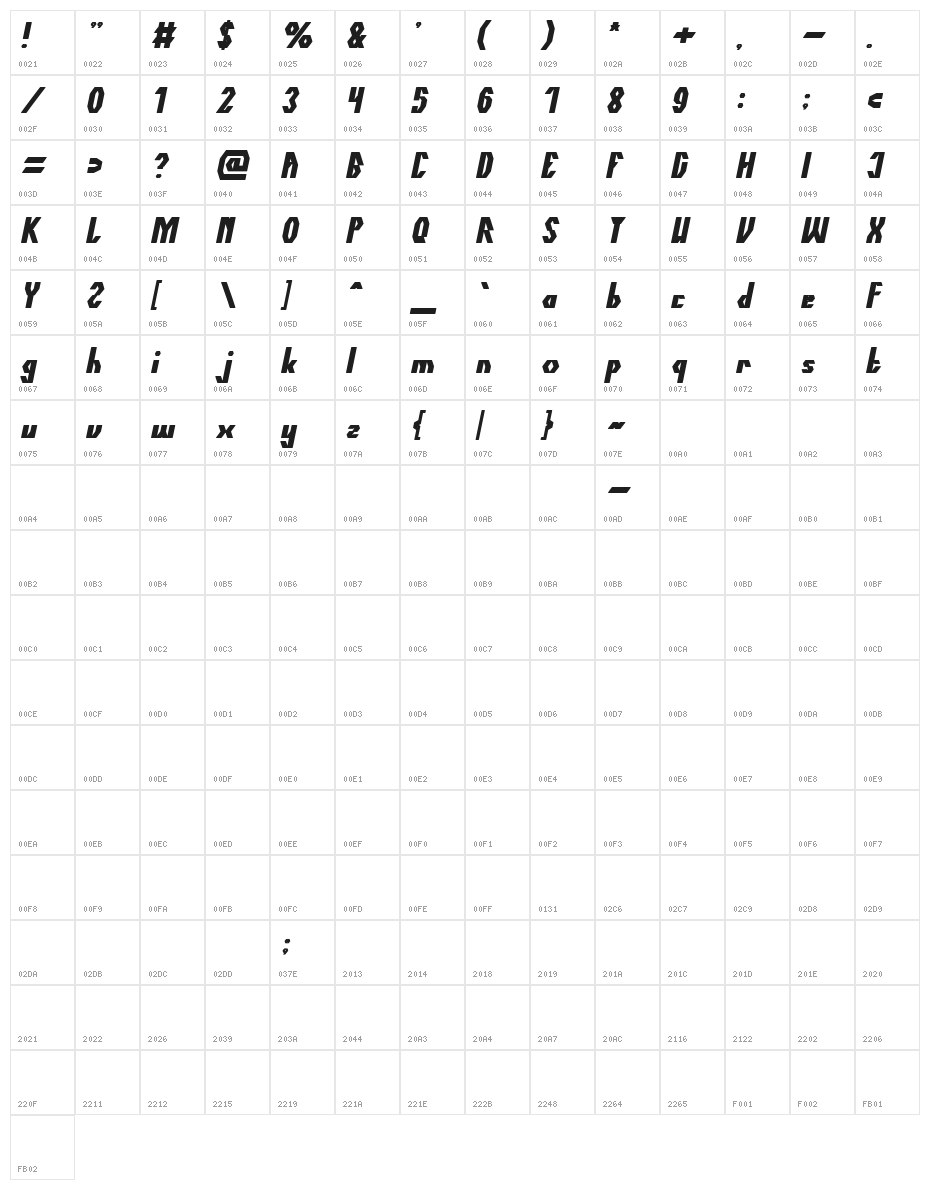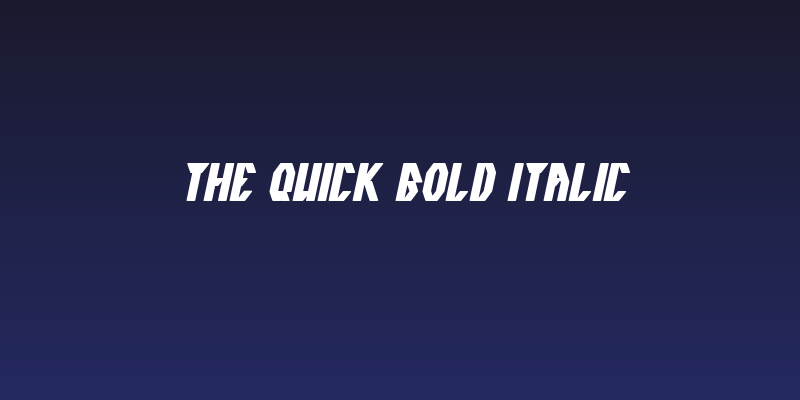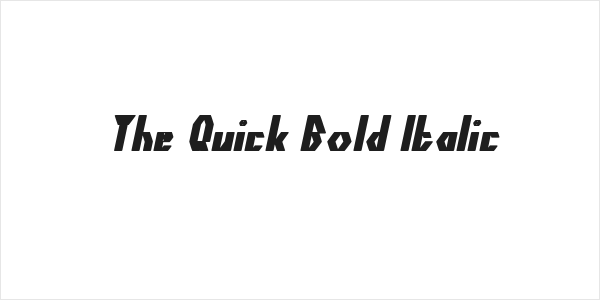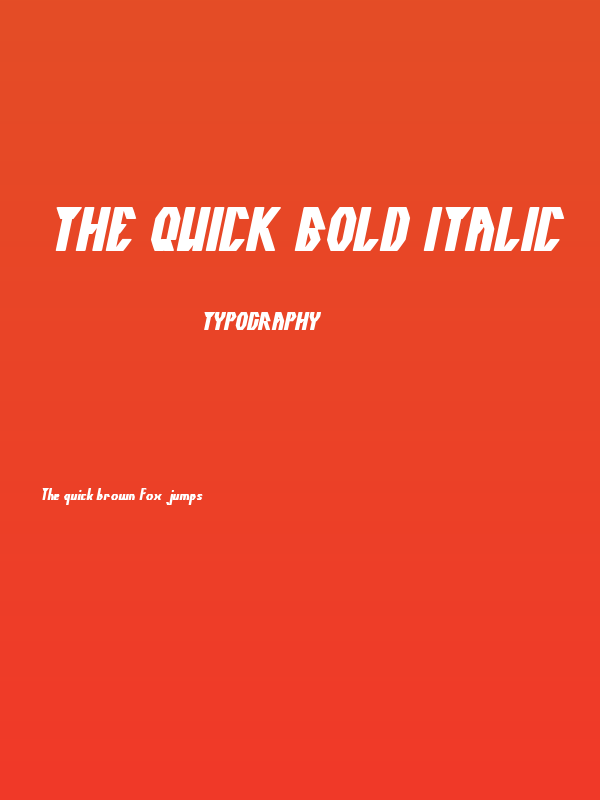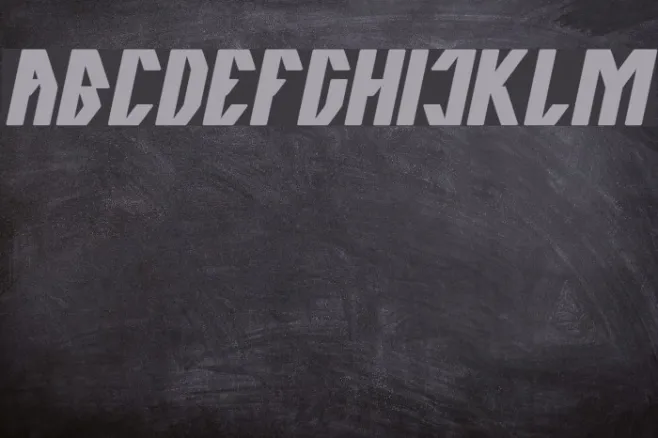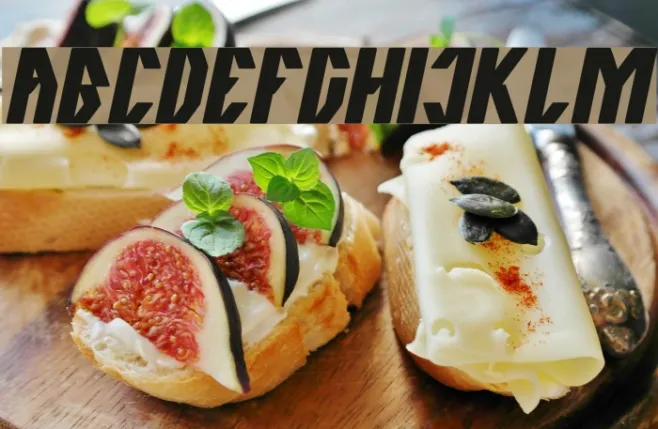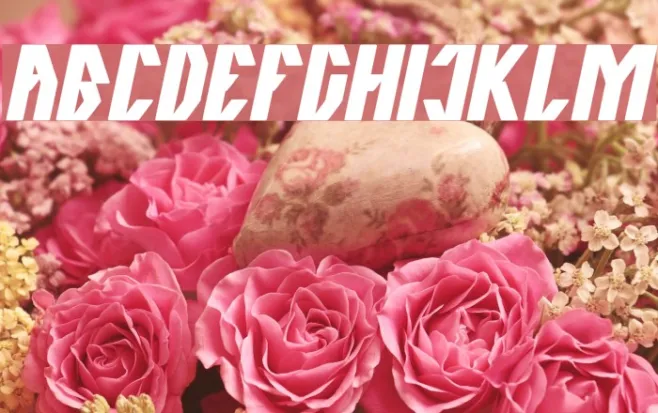
The Quick Bold Italic Font
The Quick Bold Italic Description
This font features a bold and italicized style with a strong geometric influence. The characters are sharply angled, giving a dynamic and energetic appearance. The uppercase letters are particularly striking, with a consistent slant that adds a sense of motion. Lowercase letters maintain the same angular design, ensuring uniformity across the typeface. The numerals are equally bold and follow the same slanted style, making them stand out. Special characters are designed with the same attention to detail, ensuring they integrate seamlessly with the rest of the font. This font's unique style makes it suitable for projects that require a modern and edgy look.
| Proposed Projects | Ideal for branding, posters, headlines, and any design needing a modern, edgy touch. |